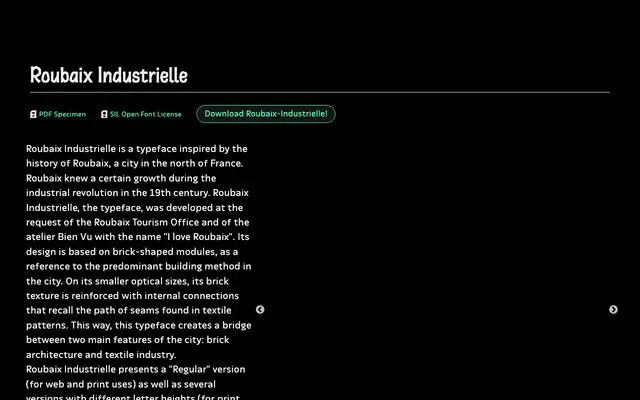
Roubaix Industrielle
Tunera · Ariel Martín Pérez
A fully modular, all-caps typeface built from brick-shaped units, commissioned by the Roubaix Tourism Office as a tribute to the city's industrial and textile heritage.
Designed by Ariel Martín Pérez for the Roubaix Tourism Office and atelier Bien Vu, the typeface draws its letterform logic from the brick construction prevalent in the northern French city. Five optical sizes shift the internal texture of each glyph, with smaller sizes gaining connective seam-like details that reference the textile industry alongside the architecture. The family includes a Regular version suitable for screen and print, plus several variants with differing letter heights for print use, all available as a variable font spanning the optical size range.
A fully modular, all-caps display typeface built from brick-shaped units, with optical size variants that alter internal texture. Its constructivist, geometric character places it firmly in display territory.